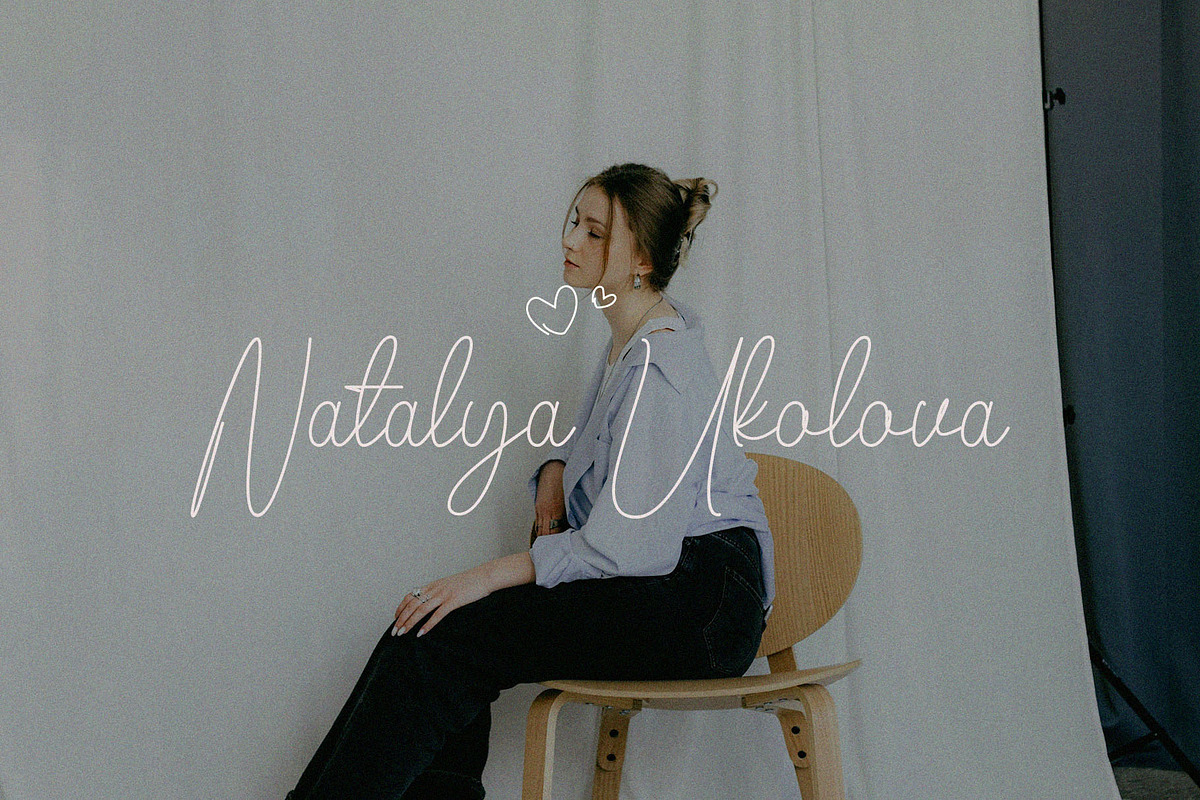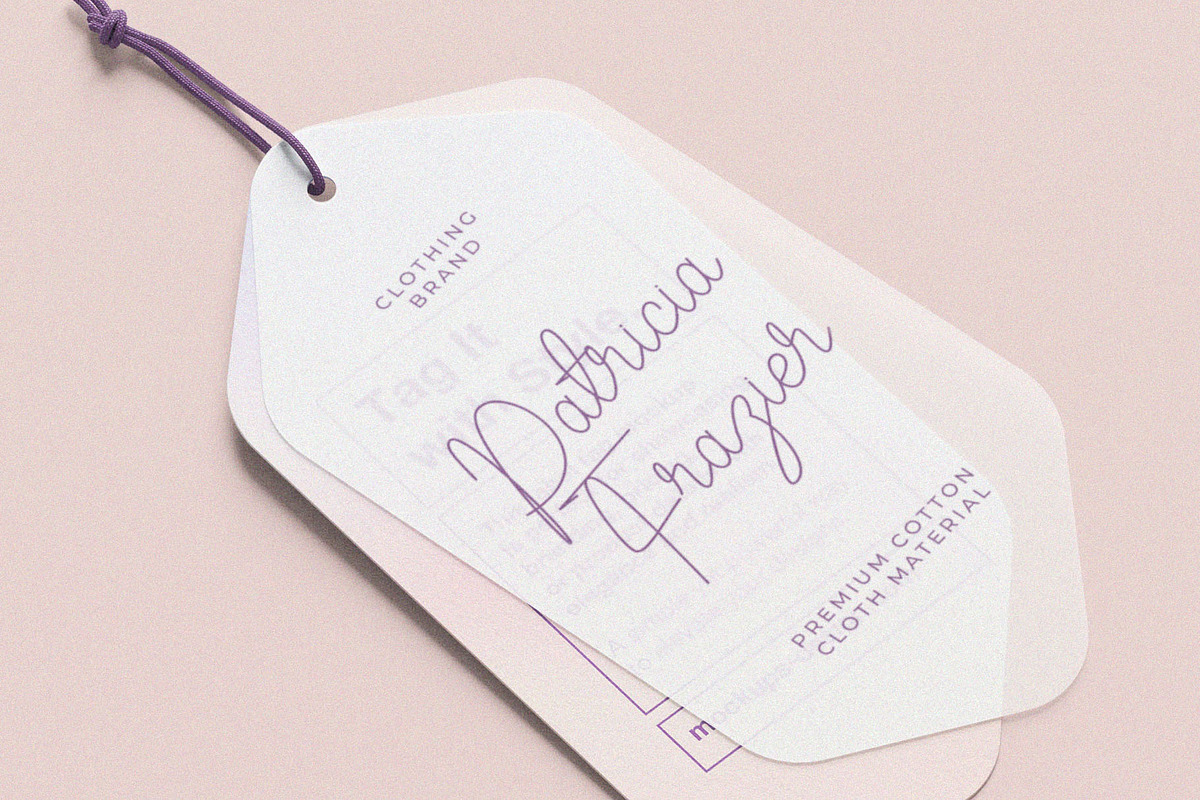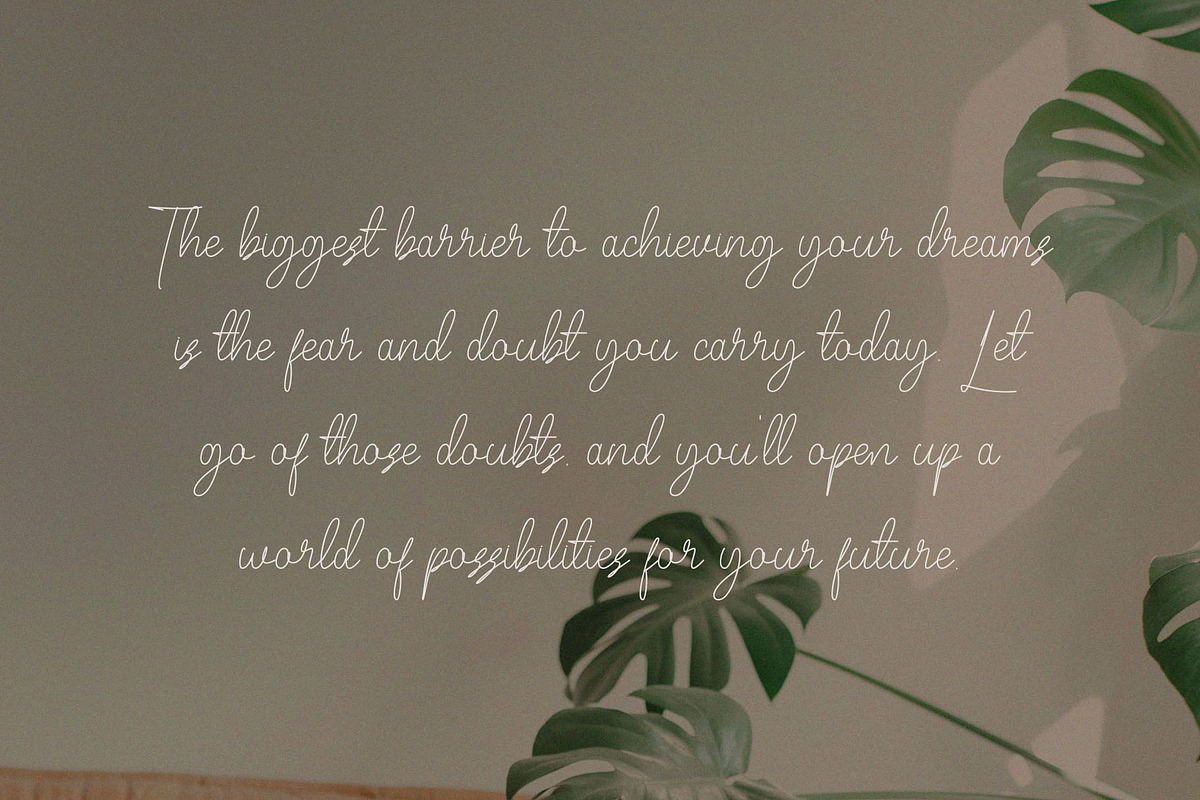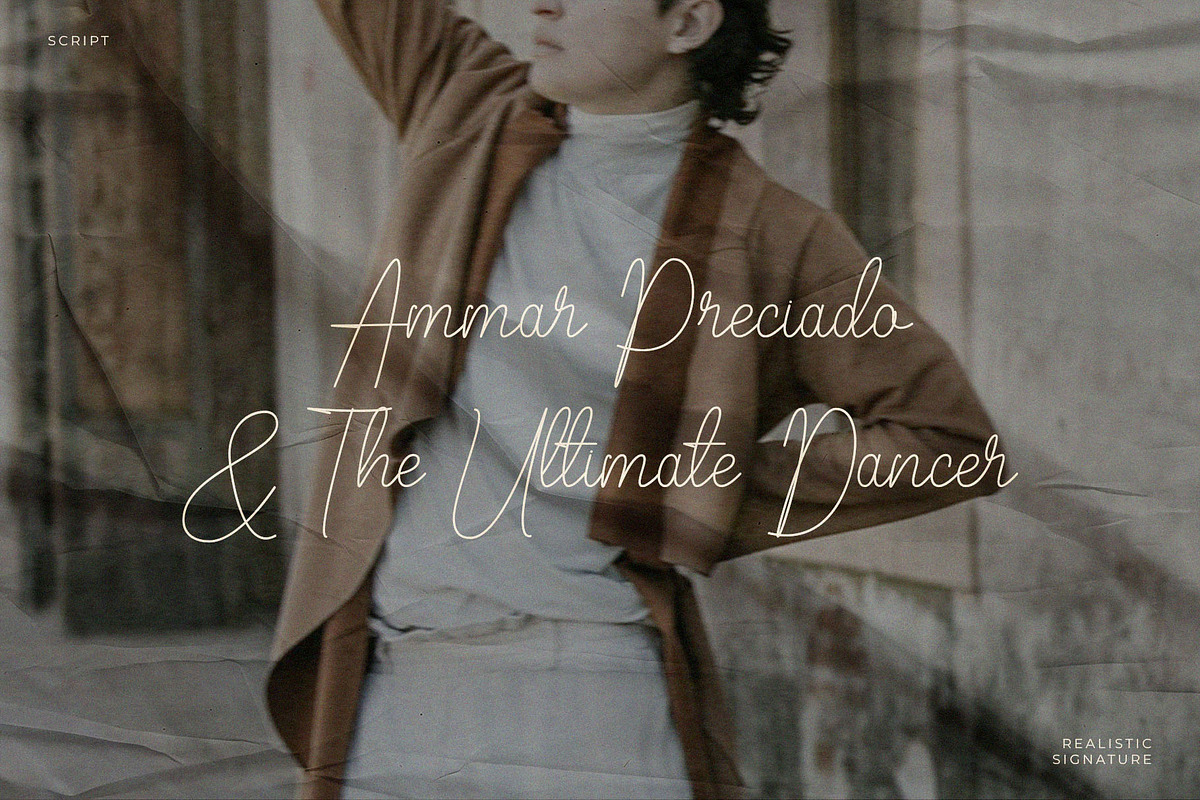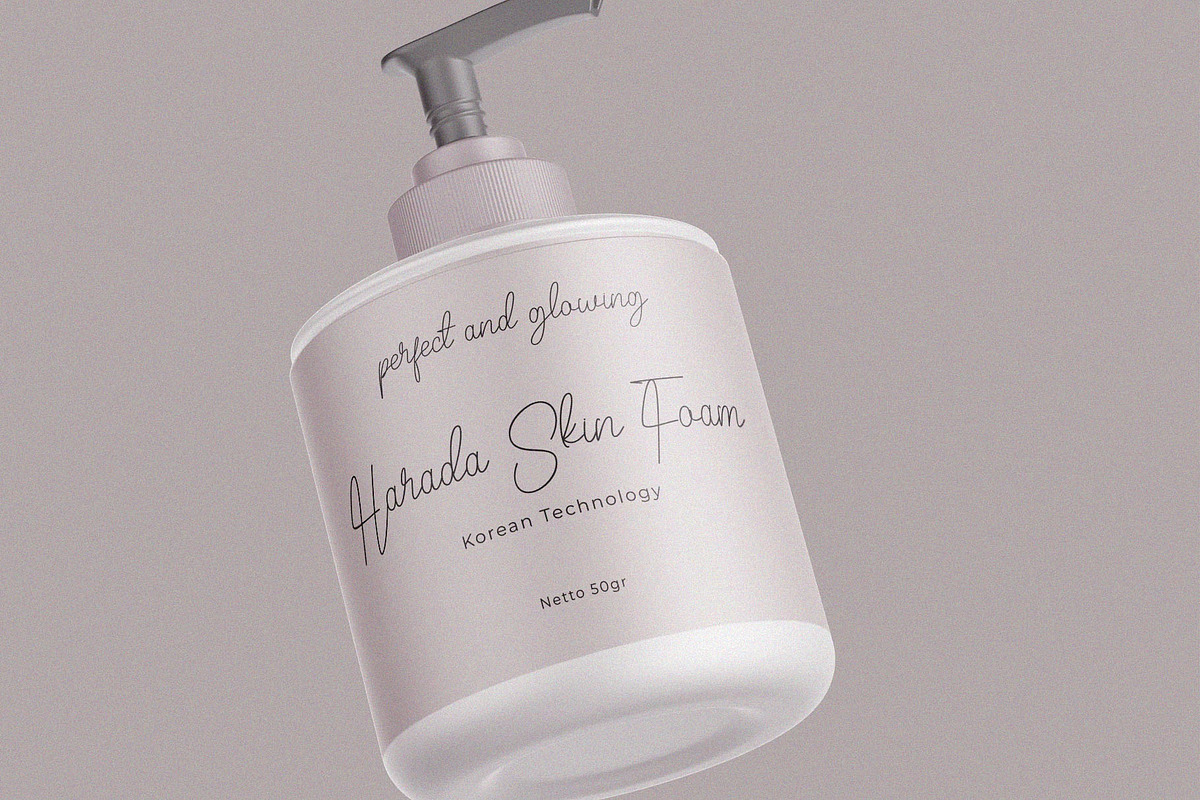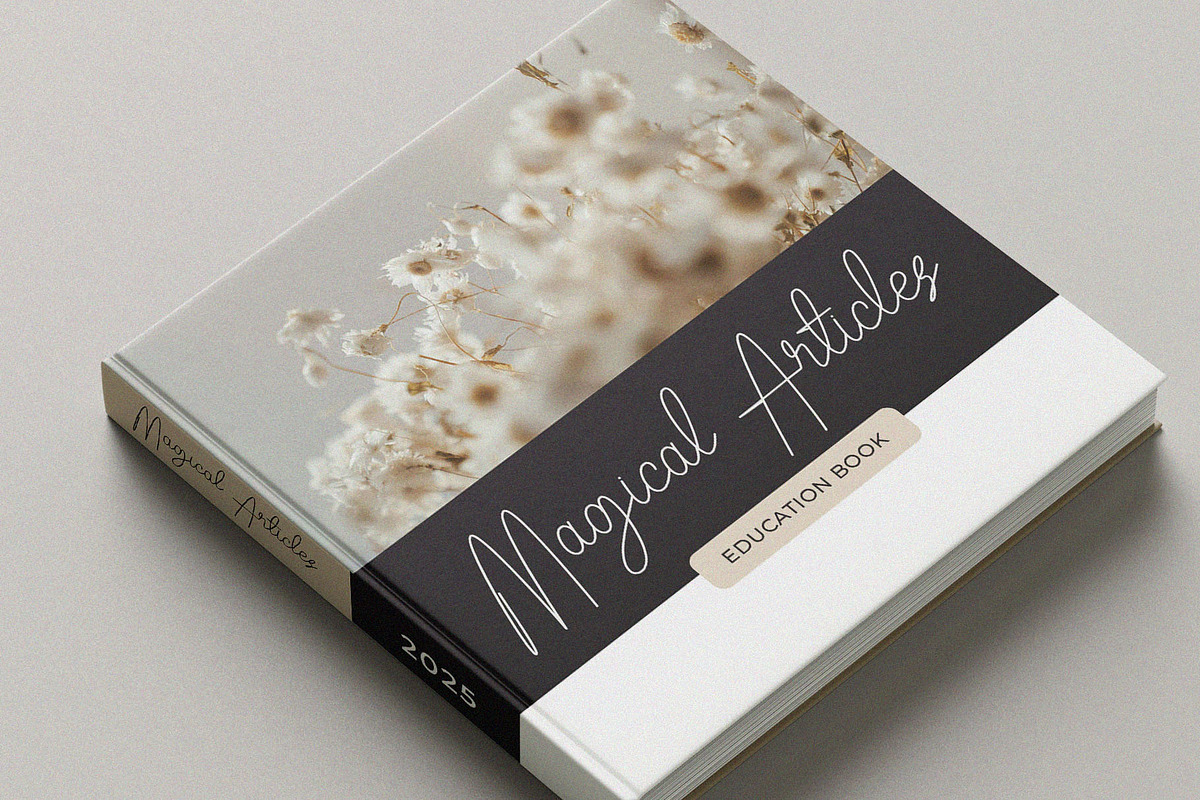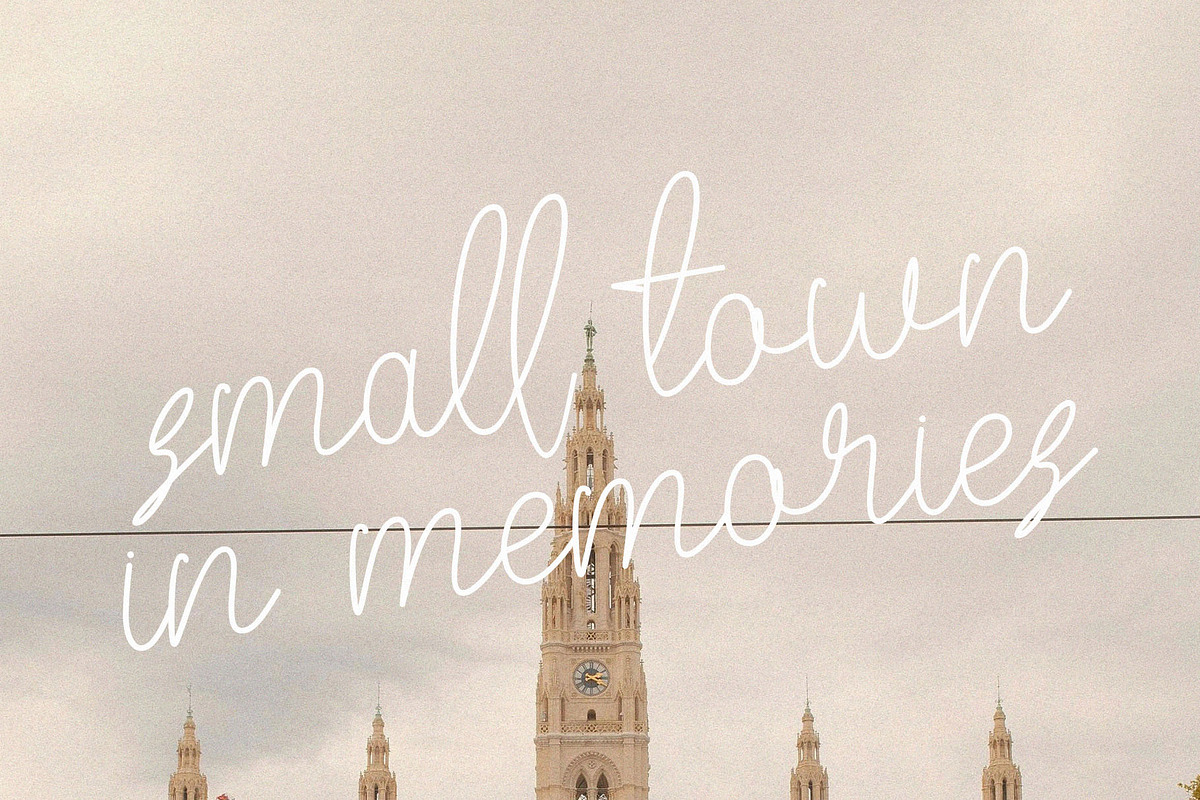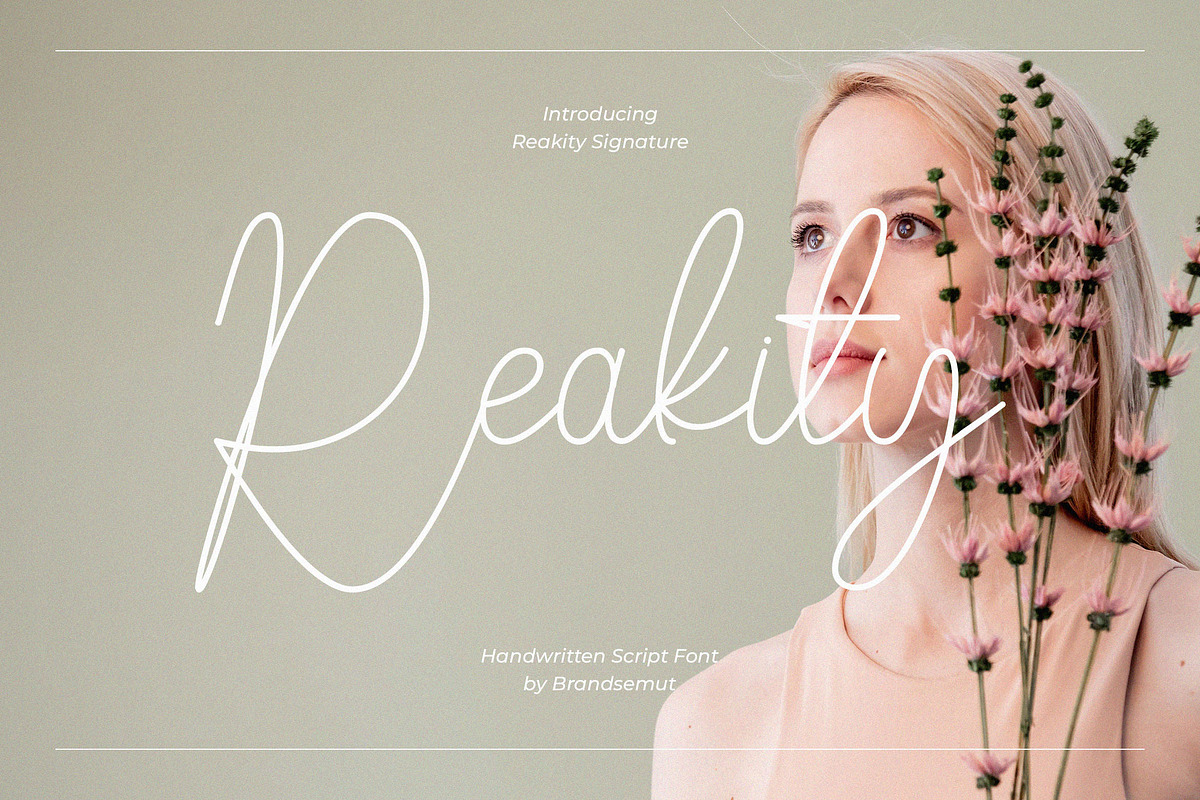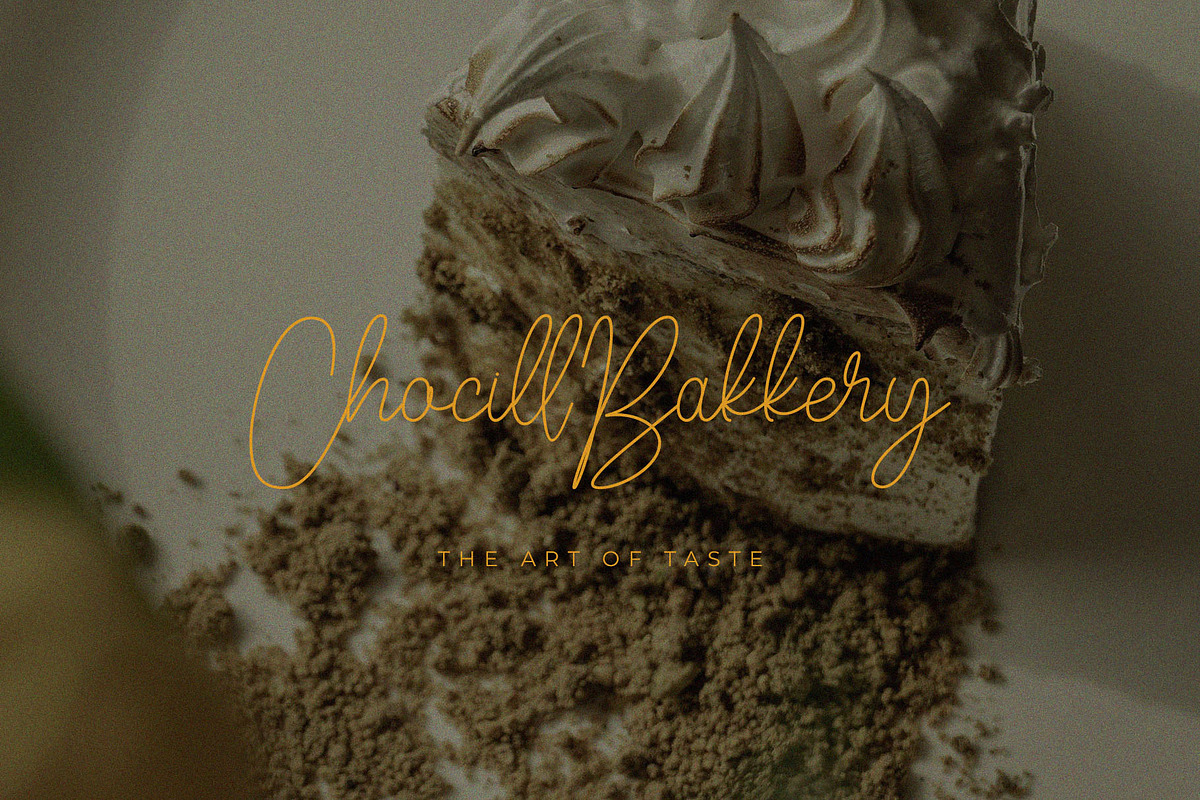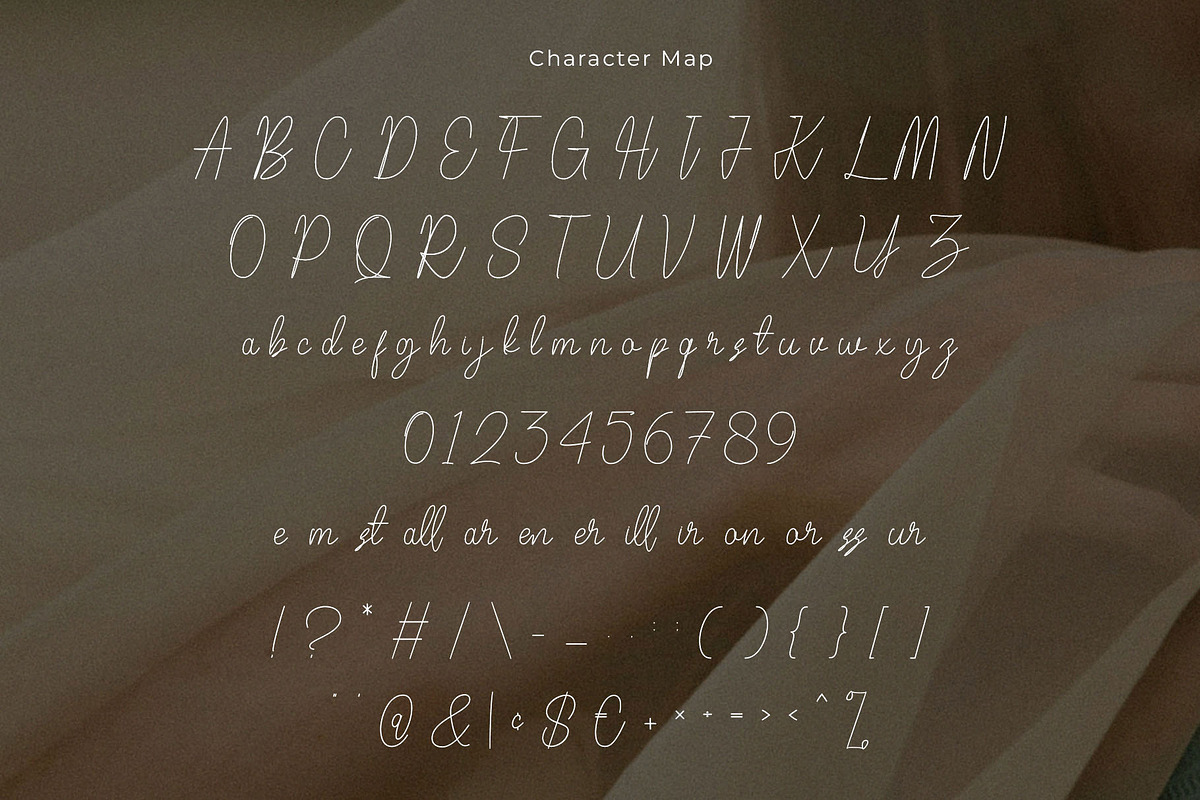
Reakity – Modern Elegant Signature
Introducing the new Reakity Signature Font is a elegant and stylish handwritten script, that you can use to perfect your design. You will get full set of lowercase and uppercase letters, multilingual, numerals and punctuation.